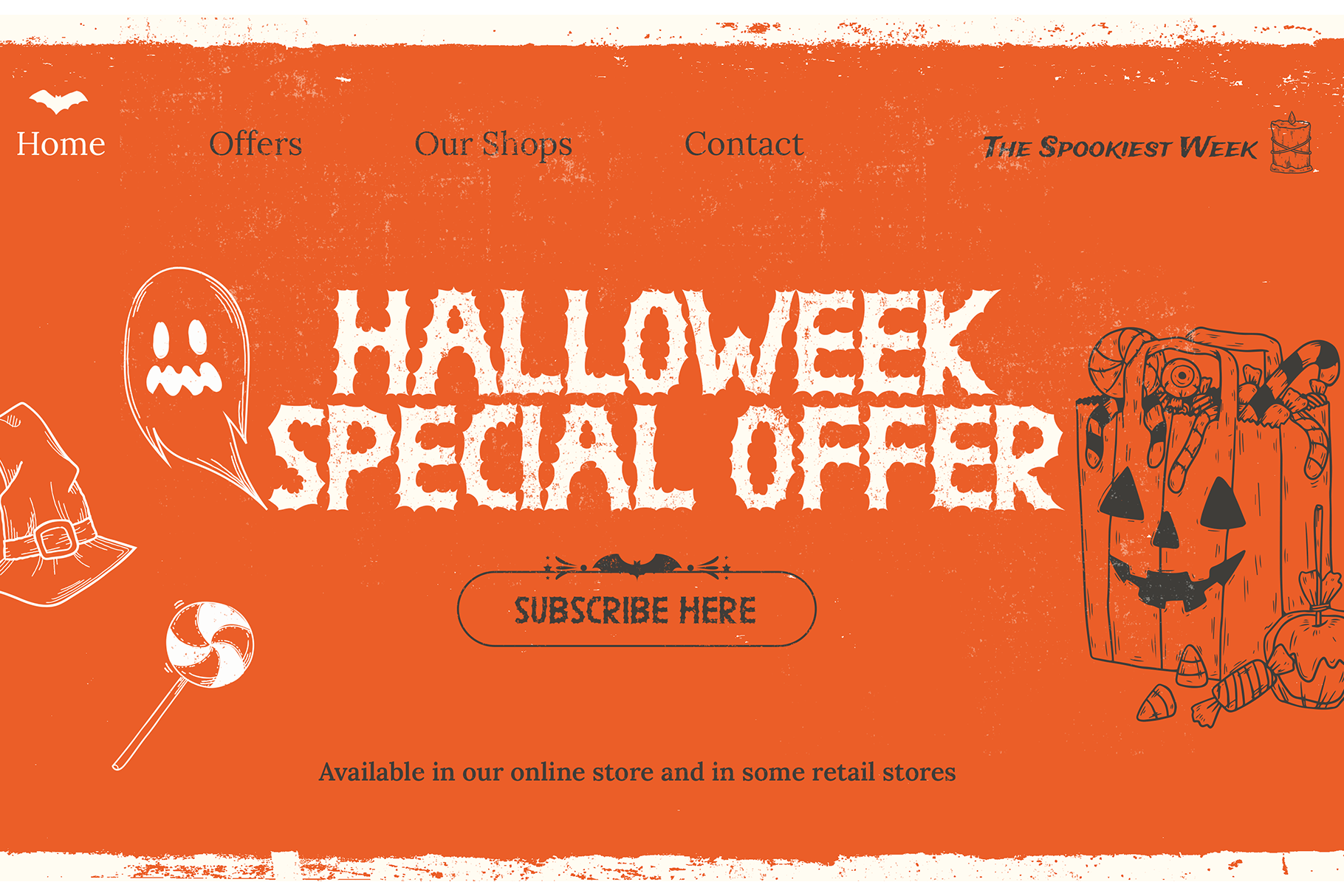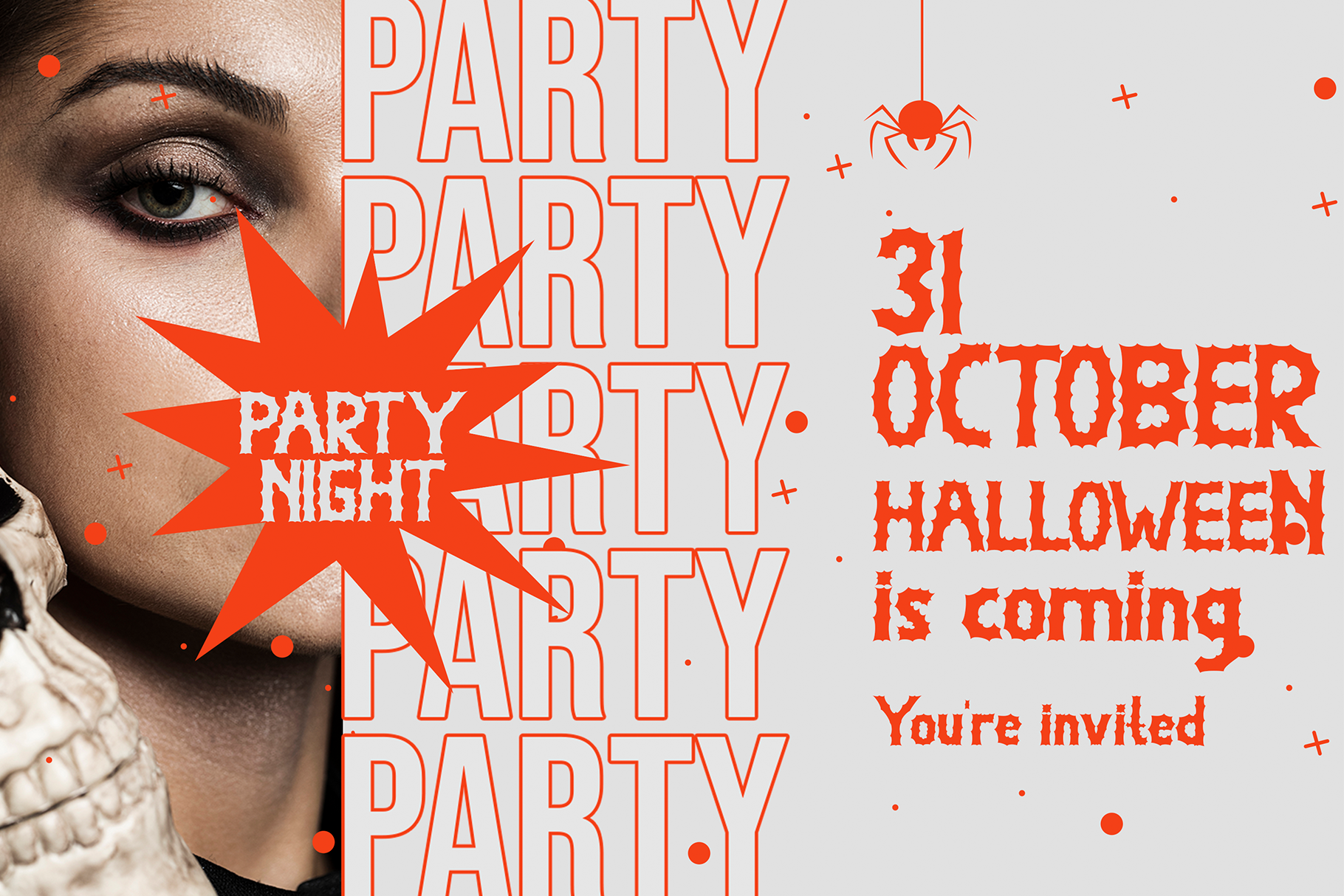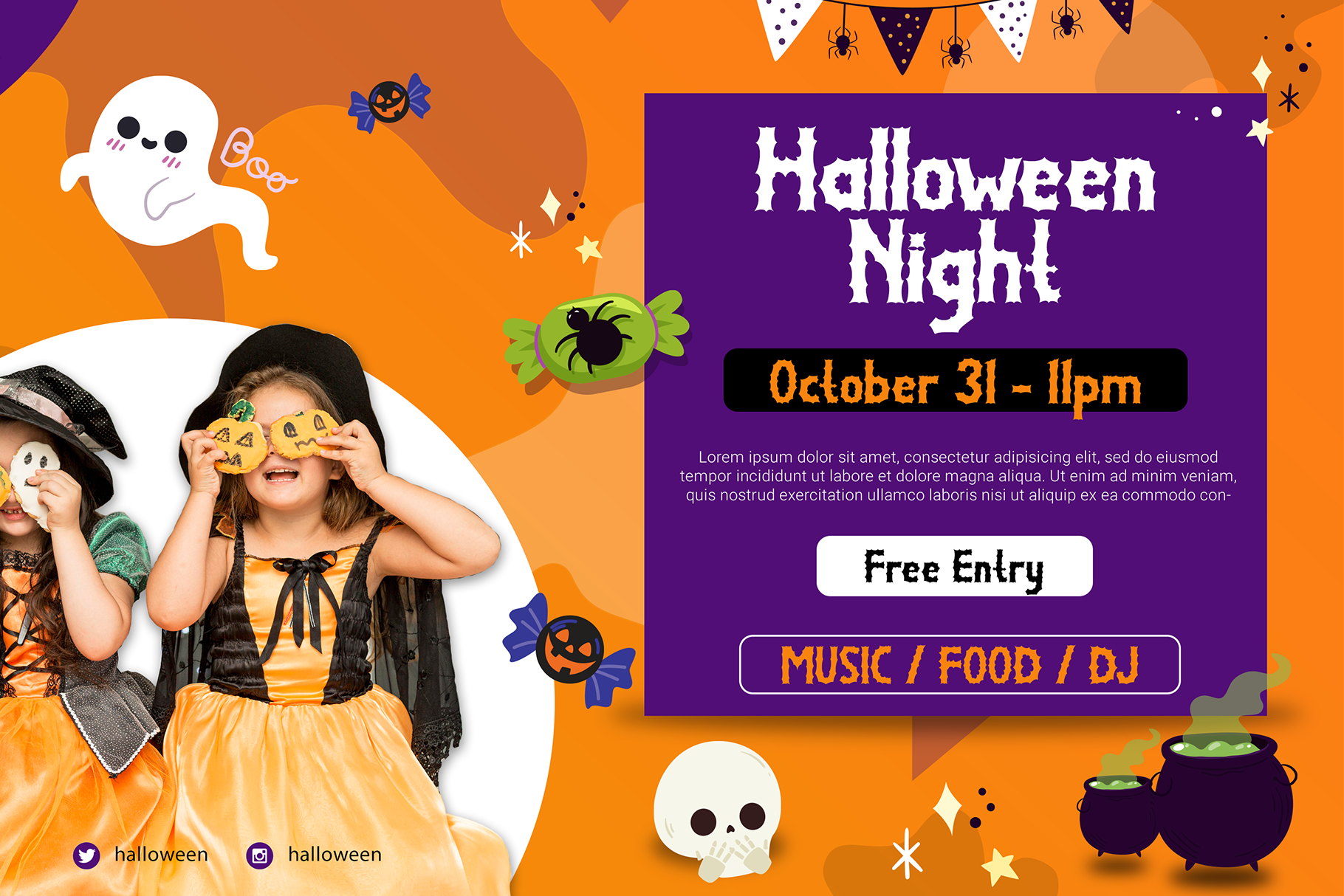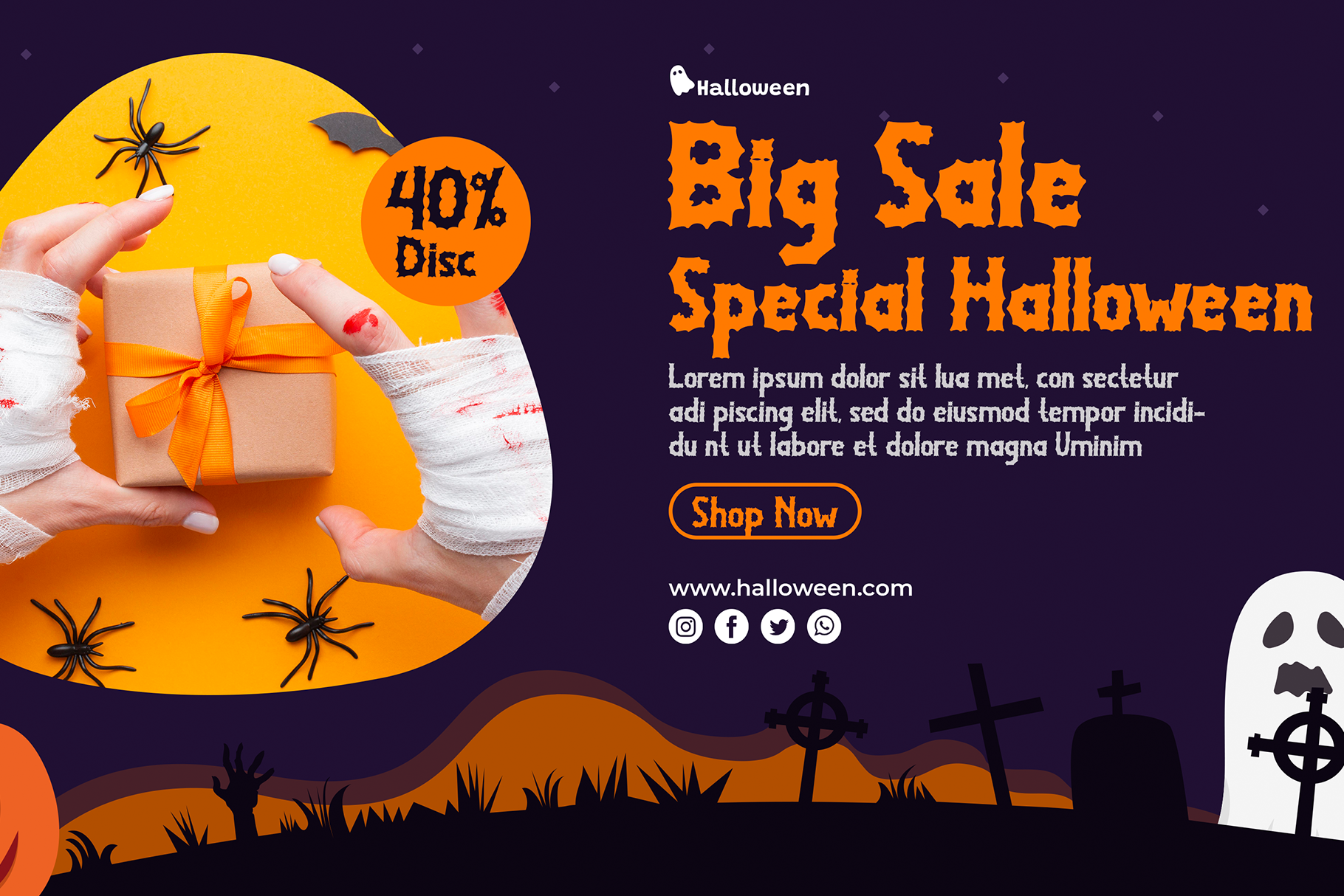
Witch Pumpkin Display Font
This is a cool, bold and spooky display font. It works for a variety of designs, but particularly for those related to Halloween designs or October parties.